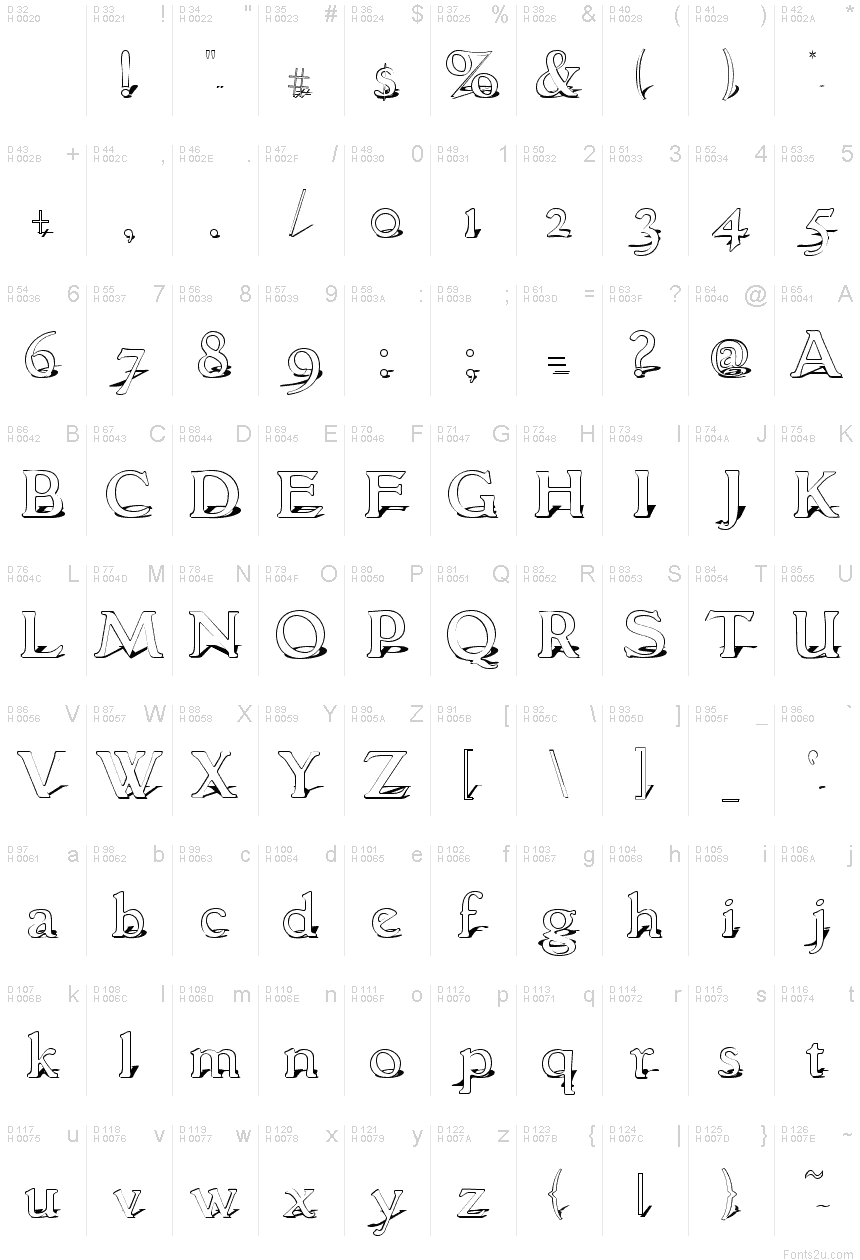
GranthamShadow
Grantham Shadow font by Pjl is a free decorative display typeface that turns every word into a little scene. Chunky serif letters sit in crisp black outlines, while inky shadows pool underneath like spilled paint, giving the text a playful, slightly eerie depth. The shapes feel hand-drawn rather than polished, so headlines look tactile and alive instead of stiff or digital.
Using Grantham Shadow, you can add instant drama to posters, book covers, Halloween graphics, mystery games, retro event flyers, or offbeat logos. This free font shines at larger sizes where the wavy silhouettes and bold shadows can really breathe; pair it with a clean, light sans serif for body text to keep the overall design readable and balanced.